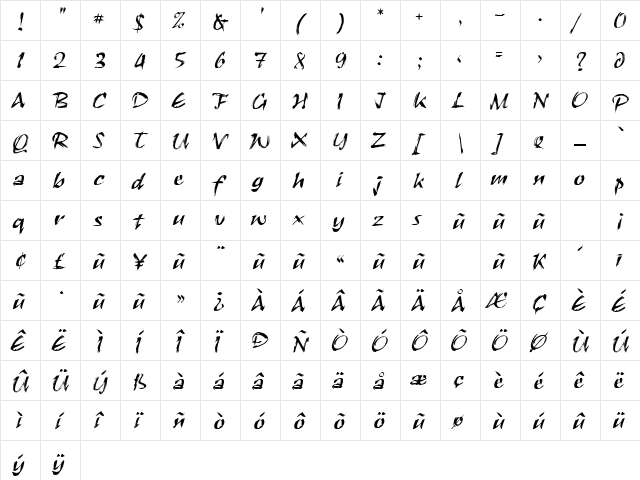
UVN But Long 1 Regular
Design Context for UVN But Long 1 Typeface
UVN But Long 1 is a composed and adaptable typeface that performs quietly and consistently across a wide range of design contexts.